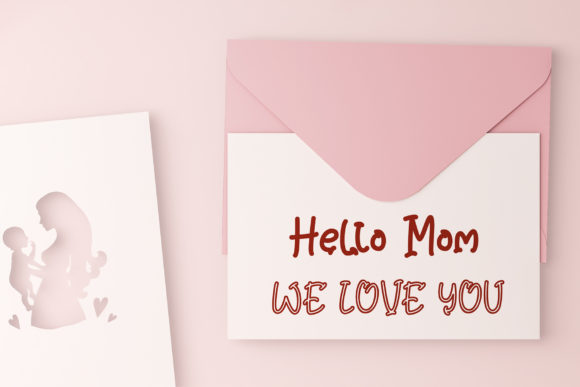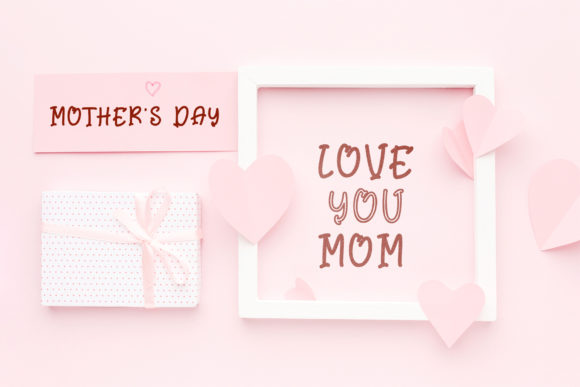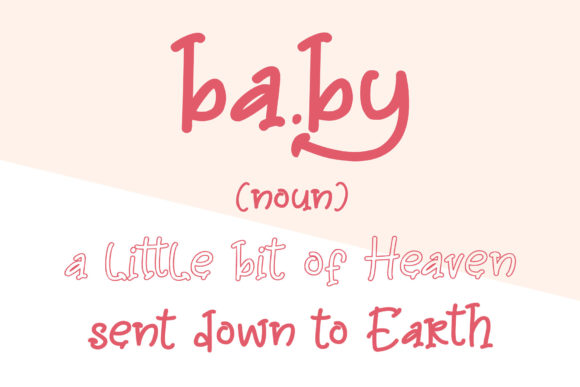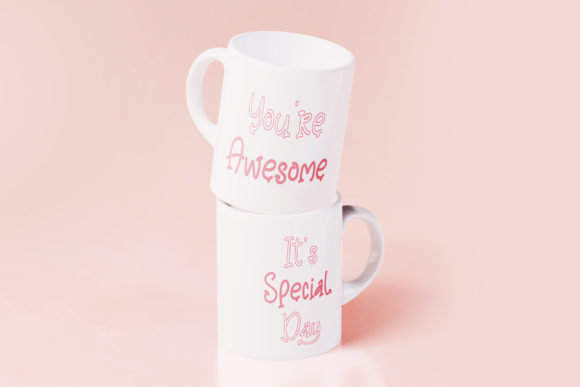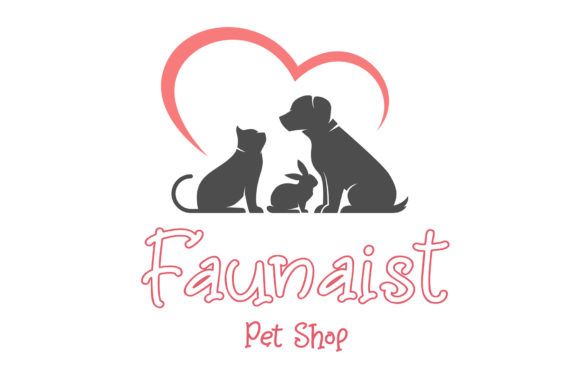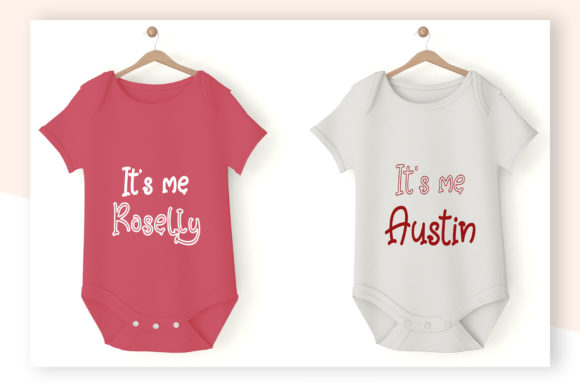
Introduction to Mommy and Baby Font Font
Fonts play a crucial role in design, and the Mommy and Baby Font font is a typeface that brings both character and versatility to any project. Whether you’re working on a branding project, a website, or a print design, the Mommy and Baby Font font offers a unique style that can elevate your work.
Mommy and Baby is a modern display font that is readable, fun and stylish.
It is defined by smooth curves and is perfect for fashion branding or editorial designs Add it confidently to your projects, and you will love the results.
Key Features of Mommy and Baby Font Font
Why Choose Mommy and Baby Font Font?
The Mommy and Baby Font font is more than just a typeface – it’s a design tool that helps you communicate your message with style and clarity. Its unique character set and versatile design make it suitable for a wide range of applications, from elegant invitations to bold headlines.
With its carefully crafted letterforms and balanced proportions, the Mommy and Baby Font font ensures readability and visual appeal across all mediums.
What makes Mommy and Baby Font font special?
The Mommy and Baby Font font stands out with its unique design, exceptional readability, and versatility across various design applications.